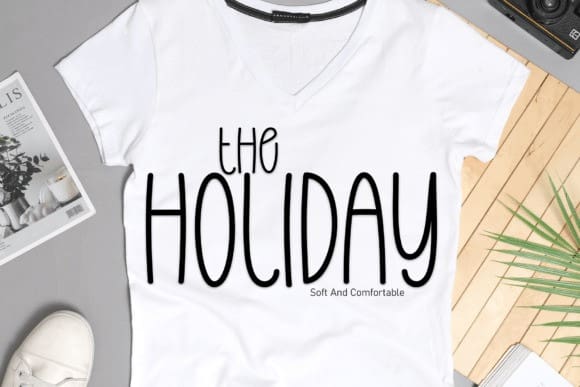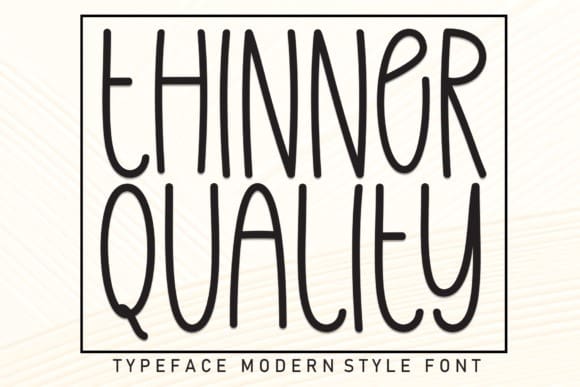
Thinner Quality Font
Thinner Quality Font is a sweet and friendly handwritten font. Cute and fun, this font is ideal for writing wedding invitations, cards, or any other design that might need a lovely touch!